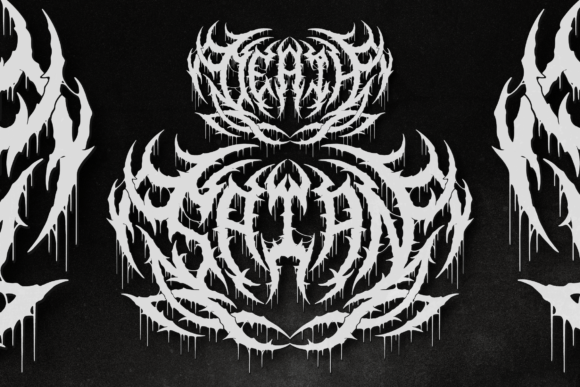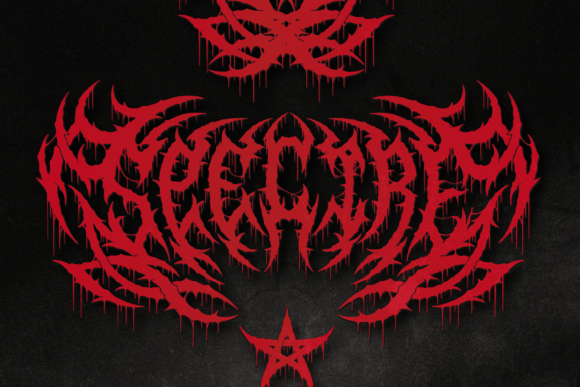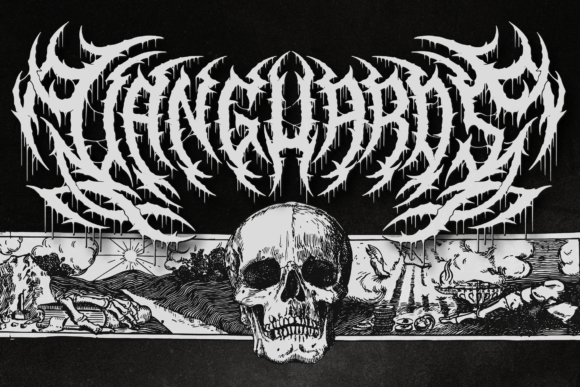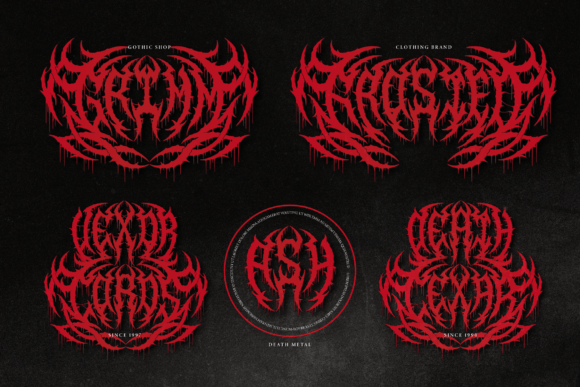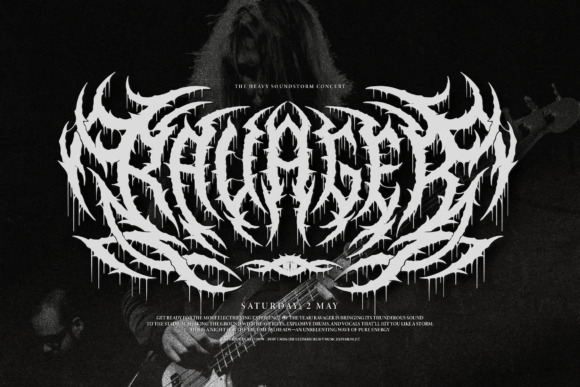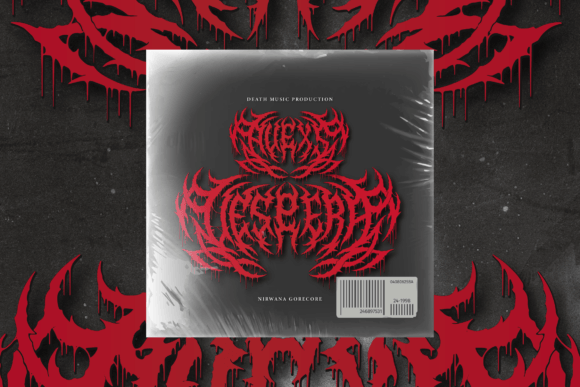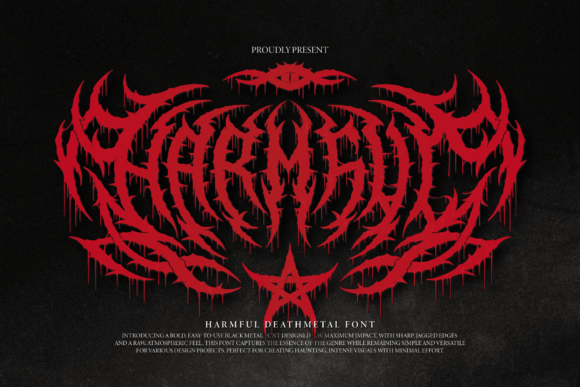
Harmful Font: Unleash the Fury of Death Metal in Your Designs
Are you a designer or crafter looking to add a touch of darkness and aggression to your projects? Look no further than the Harmful Font, a death metal blackletter font that’s perfect for creating bold and eye-catching designs. In this article, we’ll explore the features and benefits of the Harmful Font, and show you how to incorporate it into your work.
What is Harmful Font?
Harmful Font is a unique and powerful death metal blackletter font that’s designed to add a touch of darkness and intensity to your designs. With its bold and distressed lettering, this font is perfect for creating designs that demand attention and exude a sense of rebellion.
Features of Harmful Font
- Death Metal Style: The Harmful Font is designed to capture the essence of death metal music, with bold and aggressive lettering that’s perfect for creating designs that are both intense and eye-catching.
- Blackletter Style: The font features a traditional blackletter style, with intricate and ornate lettering that’s perfect for creating designs that are both Gothic and mysterious.
- Distressed Texture: The font features a distressed texture that gives it a worn and vintage look, perfect for creating designs that look like they’ve been battle-hardened.
- High-Quality Design: The Harmful Font is designed to be high-quality and versatile, making it perfect for use in a wide range of projects, from logos and branding to product packaging and more.
Uses of Harmful Font
The Harmful Font is perfect for a wide range of projects, including:
- Logos and Branding: Use the Harmful Font to create bold and eye-catching logos and branding materials that demand attention.
- Product Packaging: Add a touch of darkness and intensity to your product packaging with the Harmful Font.
- Homeware Designs: Use the Harmful Font to create bold and eye-catching homeware designs, such as posters, mugs, and t-shirts.
- Quotes and Posters: Create bold and eye-catching quotes and posters with the Harmful Font, perfect for displaying in your home or office.
- Book Covers and Invitations: Use the Harmful Font to create bold and eye-catching book covers and invitations that demand attention.
Benefits of Using Harmful Font
There are many benefits to using the Harmful Font in your designs, including:
- Unique and Eye-Catching Designs: The Harmful Font allows you to create unique and eye-catching designs that demand attention and exude a sense of rebellion.
- Versatility: The font is versatile and can be used in a wide range of projects, from logos and branding to product packaging and more.
- High-Quality Design: The Harmful Font is designed to be high-quality and durable, making it perfect for use in both digital and print projects.
Tips for Using Harmful Font
Here are some tips for using the Harmful Font in your designs:
- Use it Sparingly: The Harmful Font is bold and attention-grabbing, so use it sparingly to avoid overwhelming your design.
- Pair it with Other Fonts: The Harmful Font pairs well with other fonts, such as clean and simple sans-serif fonts.
- Experiment with Colors: The Harmful Font looks great in a range of colors, from bold and bright to dark and muted.
The Harmful Font is a powerful and versatile death metal blackletter font that’s perfect for designers and crafters looking to add a touch of darkness and intensity to their projects. With its bold and distressed lettering, this font is perfect for creating designs that demand attention and exude a sense of rebellion. Whether you’re creating logos and branding materials, product packaging, or homeware designs, the Harmful Font is the perfect choice.